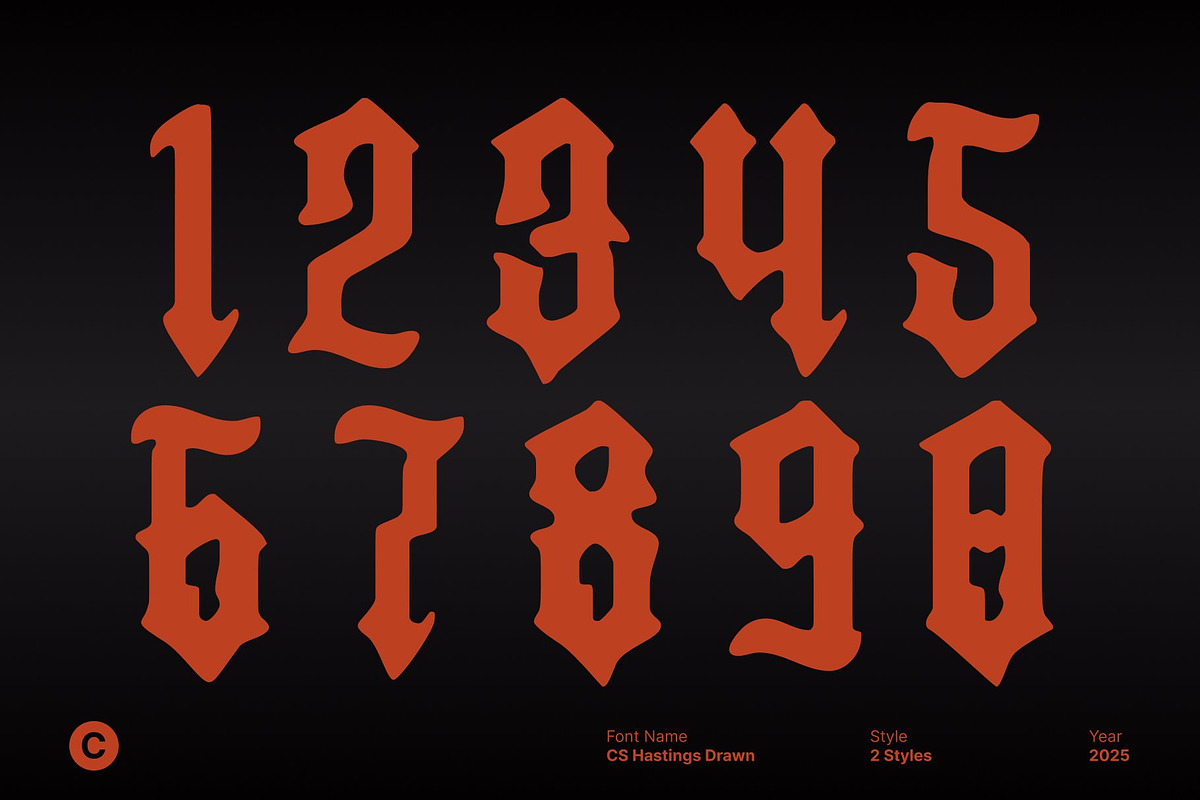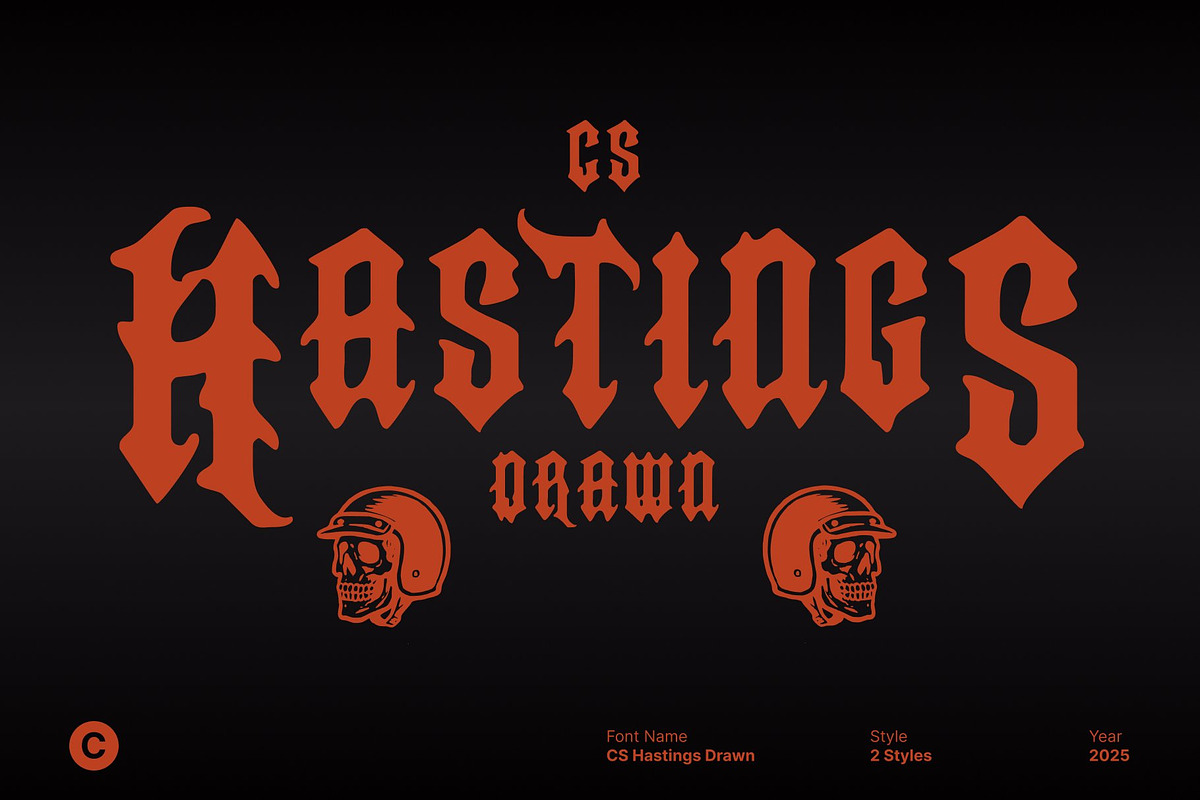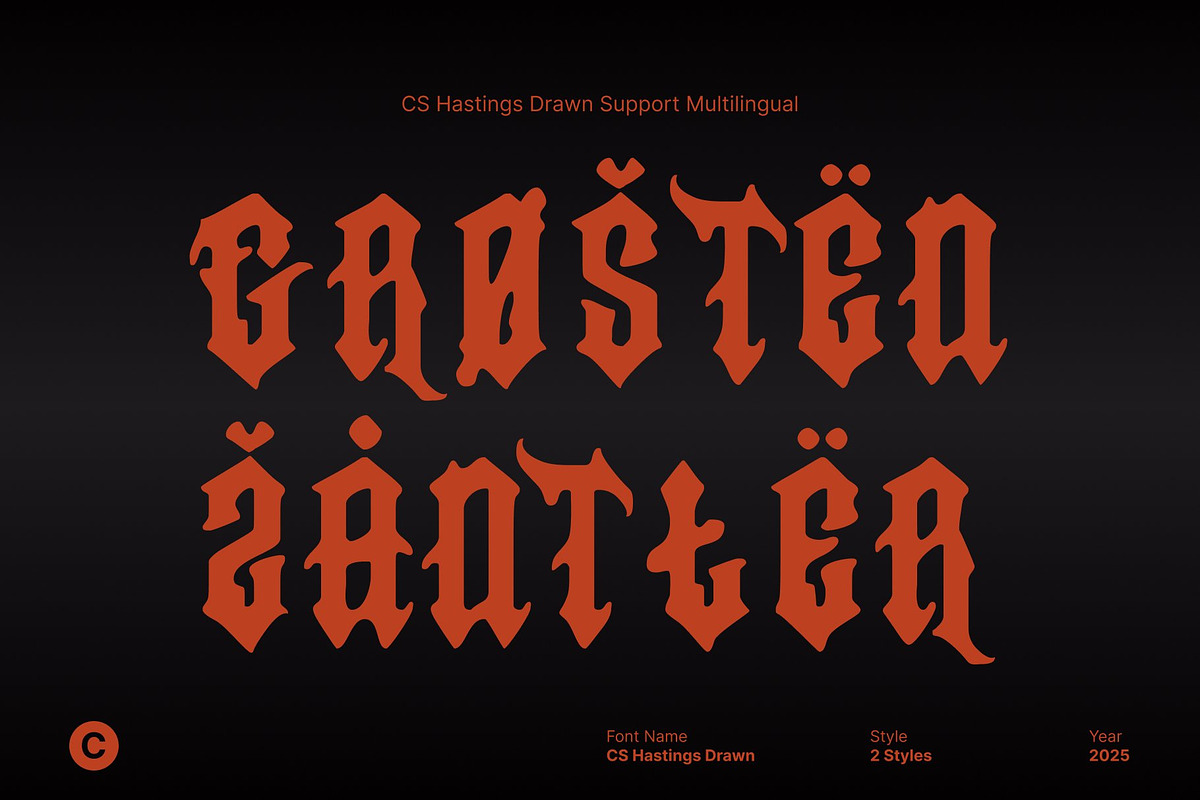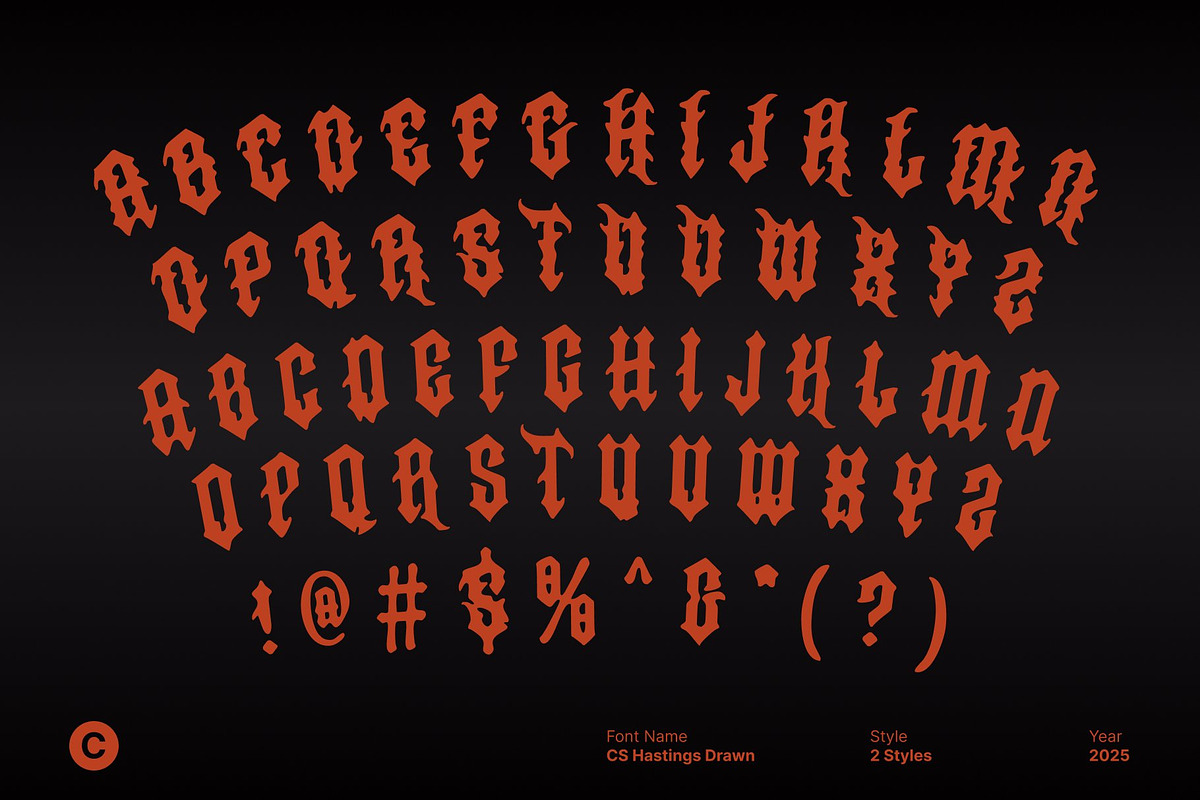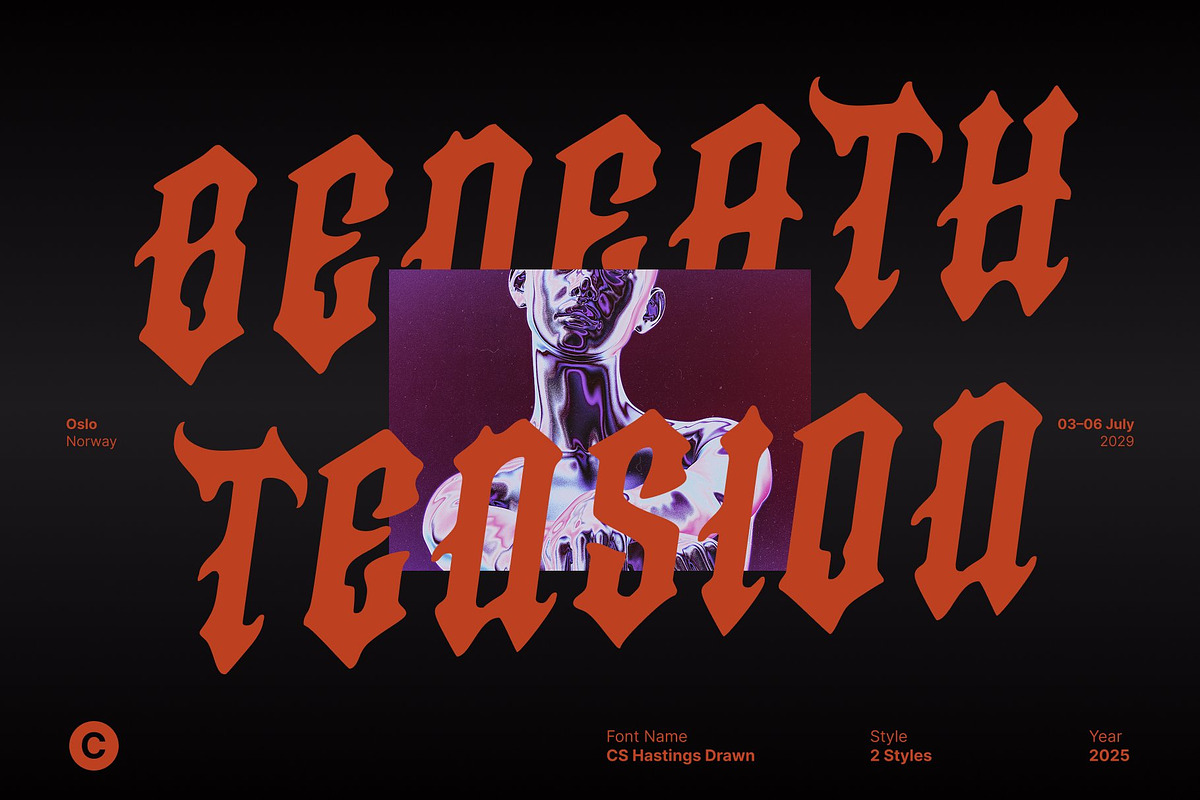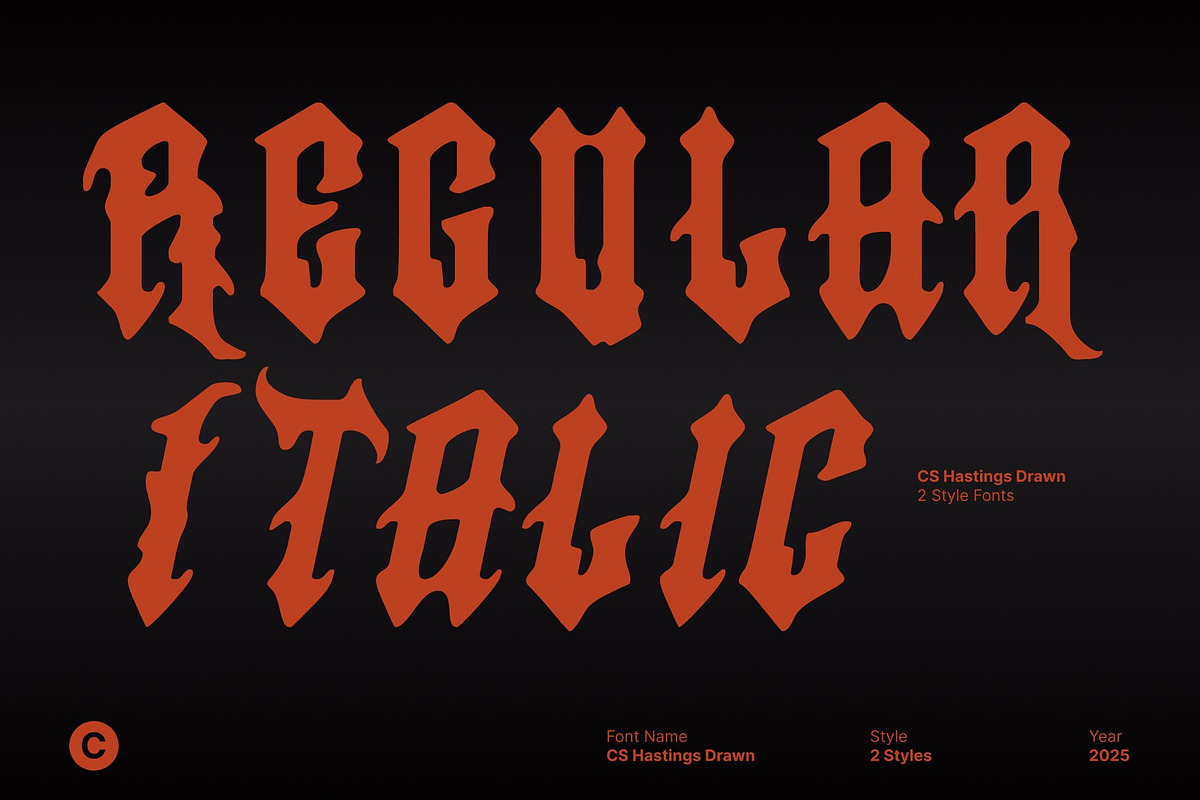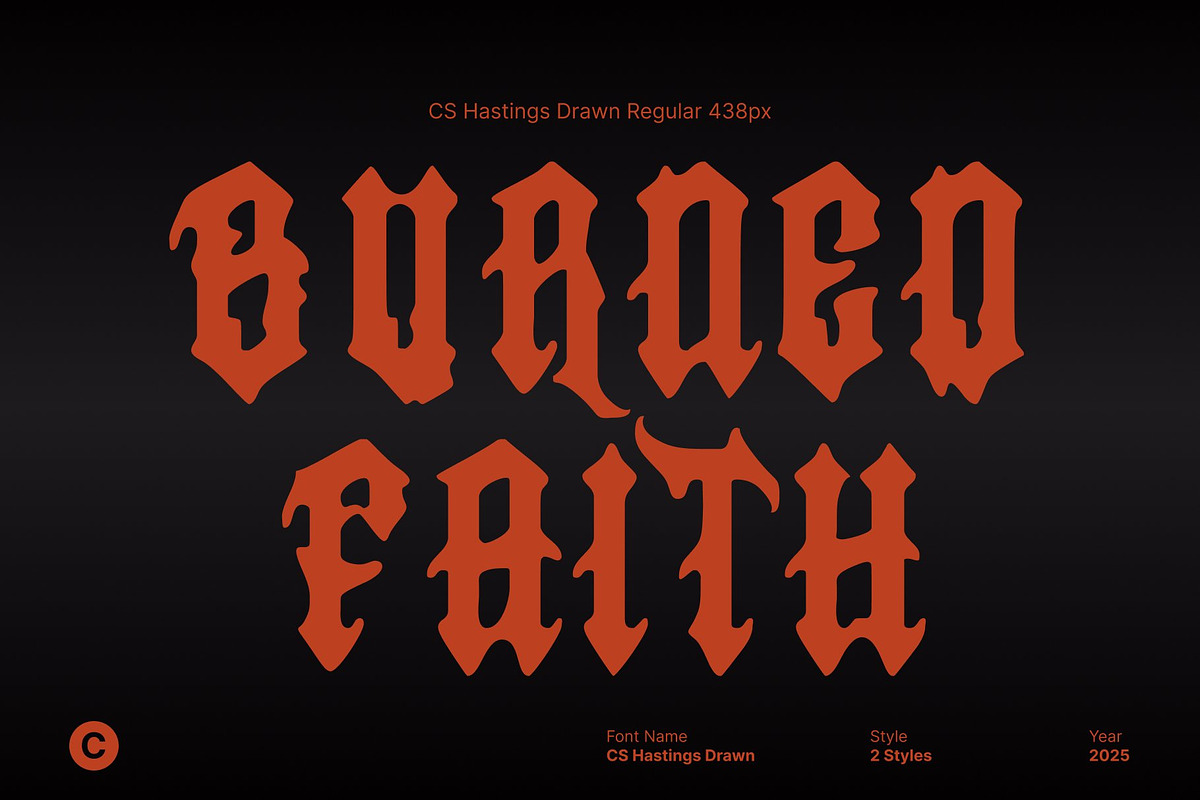
CS Hastings Drawn
CS Hastings Drawn – Blackletter Font with Dramatic Style and Artistic Texture
Bold Blackletter Forms with Classic Drama This is a striking display font built on bold, decorative Blackletter structures. Its sharp strokes, powerful curves, and ornamental details give it a timeless dramatic character. The style evokes classic calligraphy and historical lettering, making it instantly eye-catching and full of presence.
Hand-Drawn Texture for Artistic Expression To elevate its traditional Blackletter form, incorporates a rich drawn texture that adds an artisanal, handcrafted feel. This texture softens the bold structure while enhancing its expressive qualities, creating a unique blend of mystery, depth, and artistic personality. Each letter feels alive with motion and handmade charm.
Perfect for Posters, Branding, Book Titles, and Creative Statements This font excels in projects that need strong visual impact and a memorable identity. Use this font for book titles, posters, branding, merchandise, packaging, album art, or any creative work that benefits from a dramatic and unique typographic voice.
A Unique Fusion of Classic Craft and Modern Creativity This font captures the spirit of historical Blackletter while infusing it with fresh, hand-drawn personality. The result is a typeface that feels classic yet distinctly original, bold yet artistic. Whether you want to evoke mystery, heritage, or expressive visual storytelling, delivers a powerful and unforgettable typographic tone.